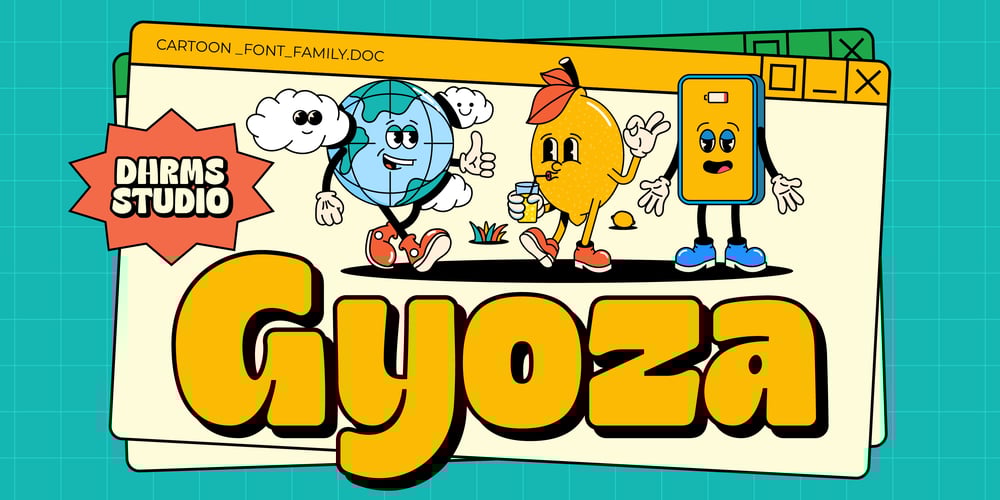
Gyoza Font Family was designed by Ahmad Jamaludin and published by Ahmad Jamaludin. Gyoza contains 4 styles and family package options. Introducing Gyoza – Font Family (4 Fonts)Gyoza – was designed in late 2022 and published on January 2023. The Typeface was inspired by the 90’s playful cartoons and comic books. This font comes with 4 weights; Regular, Semibold, Bold, and Black.Gyoza – available with the variable fonts in weights and the Ink Trap. With the regular style, you’ll have the correct anatomy of the fonts. with the Ink Trap style, it added more extreme space on the Ink Trap.Gyoza – contains everything you need to create stunning typography – from headline fonts to body text fonts – all in one place. Whether you’re starting out or you’ve been designing for years, Gyoza has everything you need. Can be used for modern and vintage designs, and also can be easily paired with some graphic elements (Illustration, Photography) this font is perfect for, Logotype, Branding, Title, and Packaging.So take your design skills up a notch and get started on some fresh new projects with Gyoza today!Similar Item: Gunydrops : LINK HERE Kelpo : LINK HERE Swipe : LINK HERE Replay : LINK HERE What you get : Gyoza Regular Gyoza Semibold Gyoza Black Features : Ligatures Instructions ( Access special characters, even in circuit design ) Letters, numbers, symbols, and punctuation No special software is required to use this typeface even work in Canva Multilingual Support Language Support: Danish, English, Estonian, Filipino, Finnish, French, Friulian, Galician, German, Gusii, Indonesian, Irish, Italian, Luxembourgish, Norwegian Bokmål, Norwegian Nynorsk, Nyankole, Oromo, Portuguese, Romansh, Rombo, Spanish, Swedish, Swiss-German, Uzbek (Latin)Please contact us if you have any questions. Enjoy crafting and thanks for supporting us!Come and say hello over on Instagram! https://www.instagram.com/dharmas.studio/Regards,Dharmas Studio